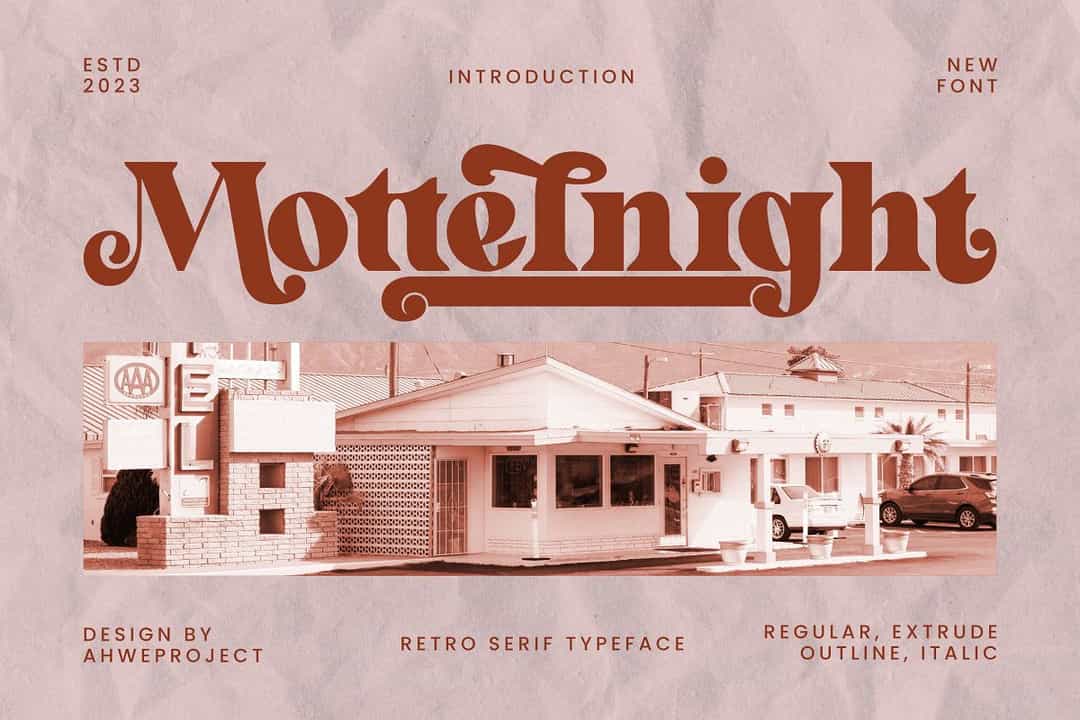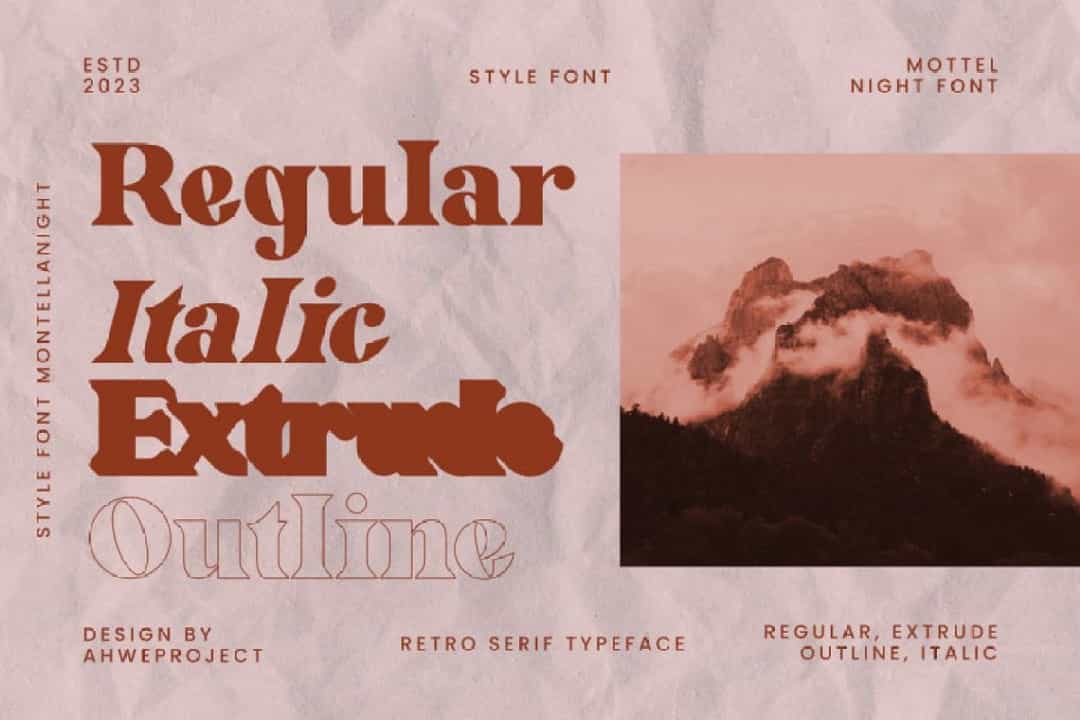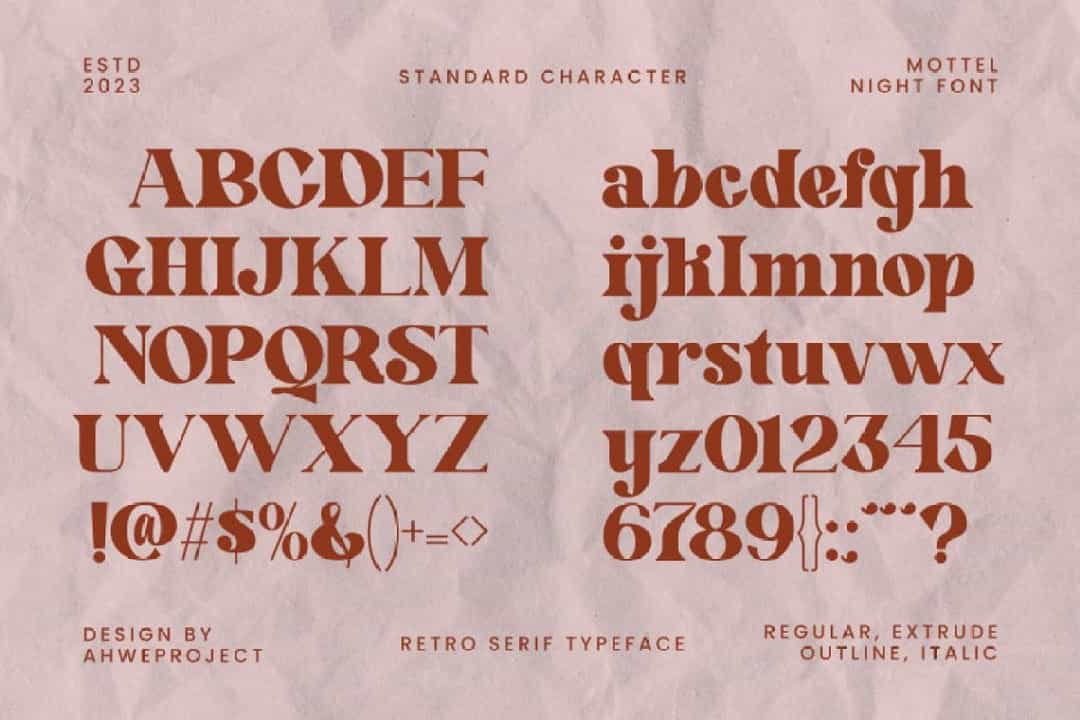
Mottelnight Serif Font is a fun and nostalgic font with an alluring vintage aesthetic, perfect for adding retro charm to every design concept imaginable! Use this font for quotes, logos, headlines, posters, headlines blog posts (Instagram stories, posts), projects involving branding magazines or more!